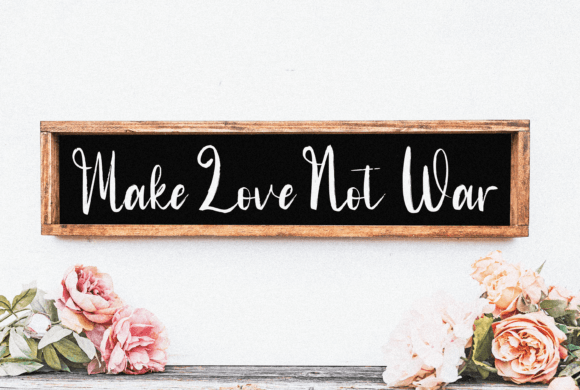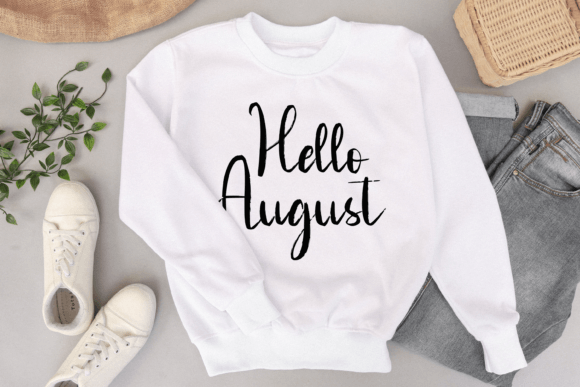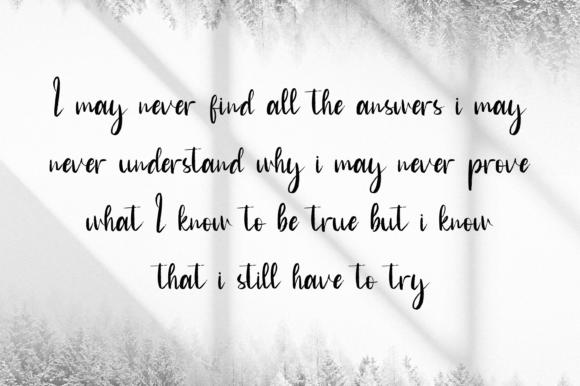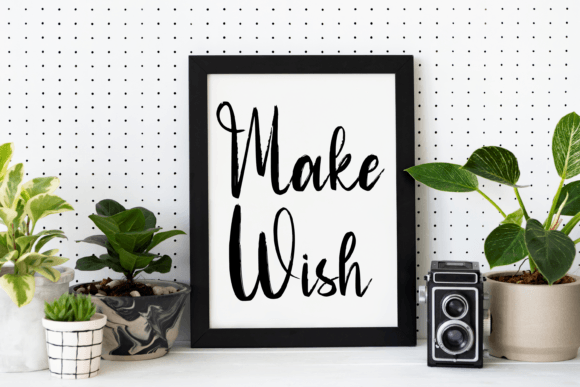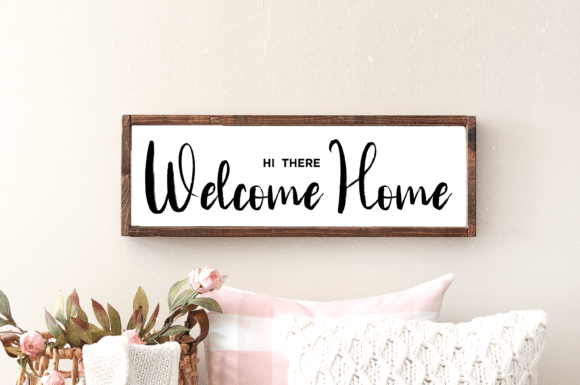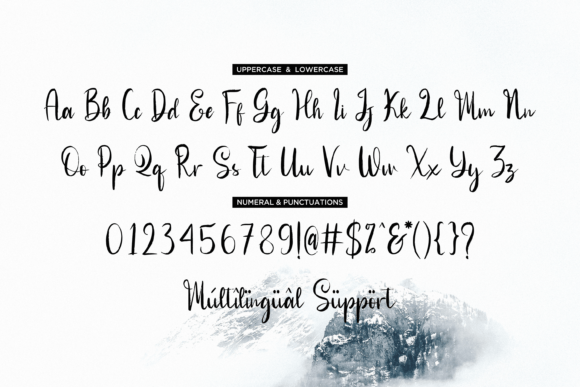
Introduction to Magestica Font
Have you ever found yourself scribbling notes in the margins of a sketchbook, only to realize that your handwriting has turned into a beautiful piece of art? That’s exactly what the Magestica Font is all about – capturing the essence of handwritten charm in a digital format. This stunning Handwritten Brush Font is perfect for designers looking to add a personal touch to their creative projects.
Whether you’re working on a product packaging design, a branding project, or a magazine layout, the Magestica Font is a valuable design resource that can elevate your work to the next level. With its high-quality, transparent background, this font is ideal for overlaying text on images or using as a standalone design element. And the best part? It’s available for free download, making it a must-have for designers on a budget.
As a design enthusiast, you know that having the right tools can make all the difference in bringing your creative vision to life. The Magestica Font is a game-changer for designers who want to add a touch of whimsy and personality to their work. So why not give it a try and see how this beautiful font can transform your designs?
Key Features of Magestica Font
- Perfect for use in logos, branding, and other design elements
- Unique, elegant, and sophisticated design aesthetic
Honest Review: Magestica Font
As a designer, I’m always on the lookout for high-quality design resources that can elevate my creative projects. I recently had the chance to work with the Magestica Font, and I’m excited to share my honest review with you.
- High-Quality Typography: The Magestica Font features beautiful, elegant typography that’s perfect for creative projects that require a touch of sophistication.
- Limited Font Variations: While the Magestica Font is a beautiful addition to any design project, it’s available in a limited number of font variations.
- Not Ideal for Large Text: Due to its elegant design, the Magestica Font may not be the best choice for large blocks of text.
Overall, I’m impressed with the Magestica Font and would definitely recommend it for designers looking for a high-quality design resource. While it may have some limitations, its free download and transparent background make it an excellent addition to any creative project.
Tips for Getting the Most Out of Magestica Font
For a high-quality design, use Magestica Font in conjunction with a transparent background to create a clean and modern look. Experiment with different font sizes and styles to add depth and interest to your design.
Magestica Font is ideal for creative projects, such as branding, logos, and marketing materials. Its high-quality design and transparent background make it a versatile design resource for a variety of applications.